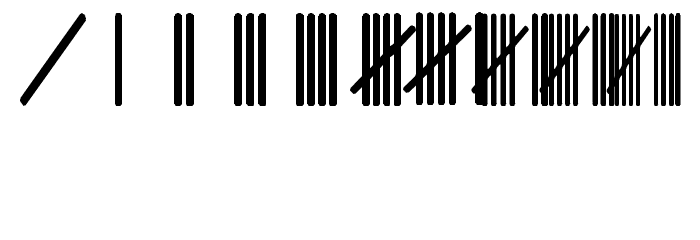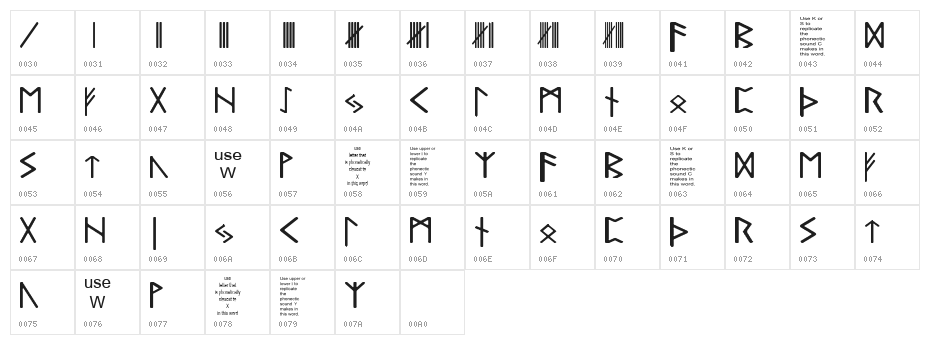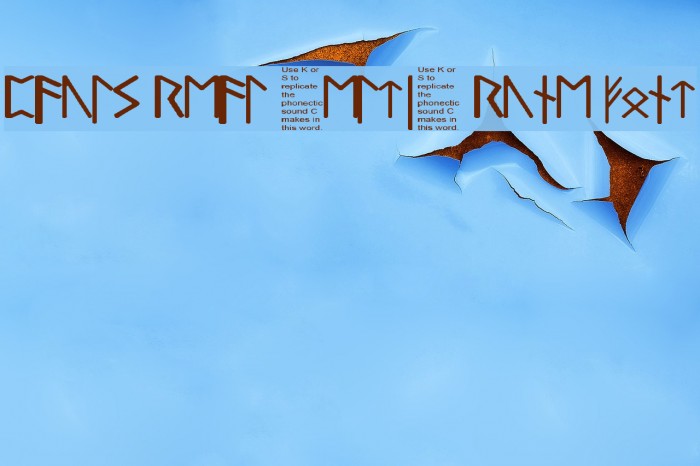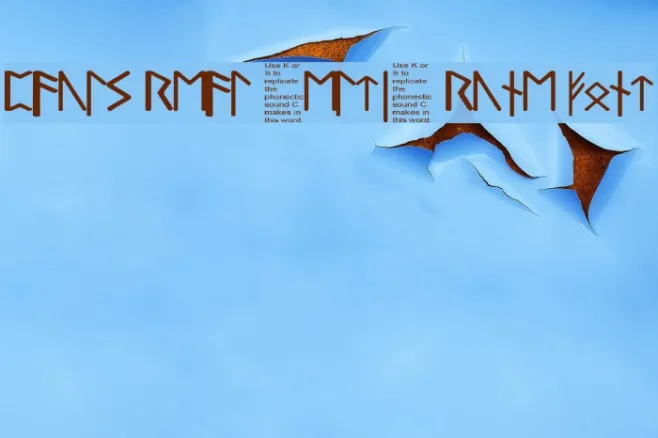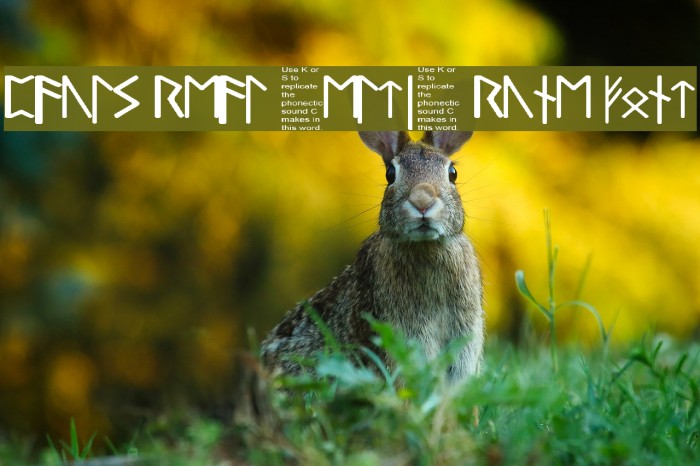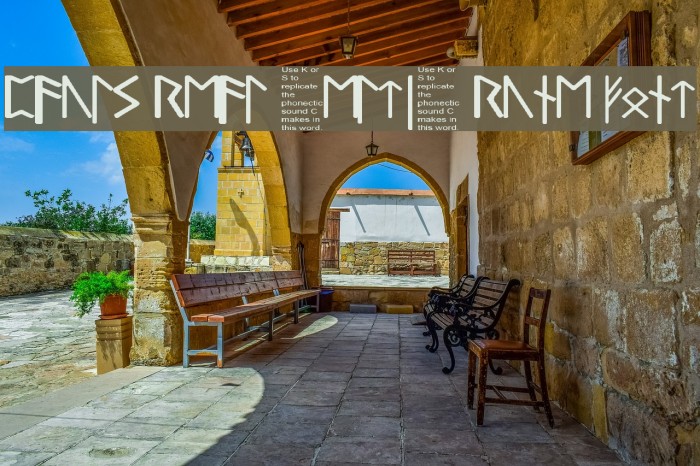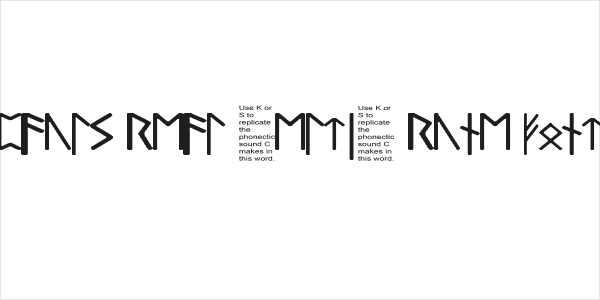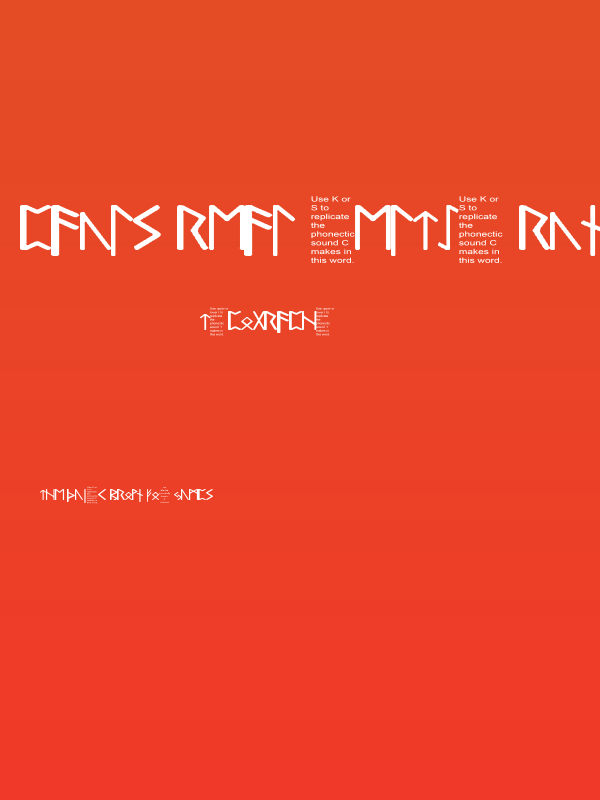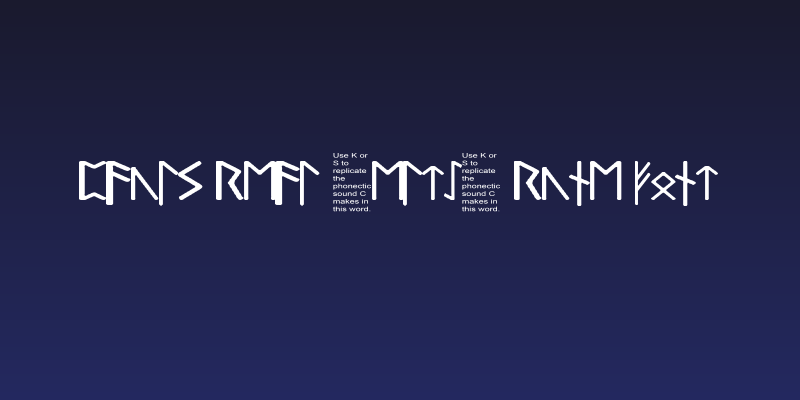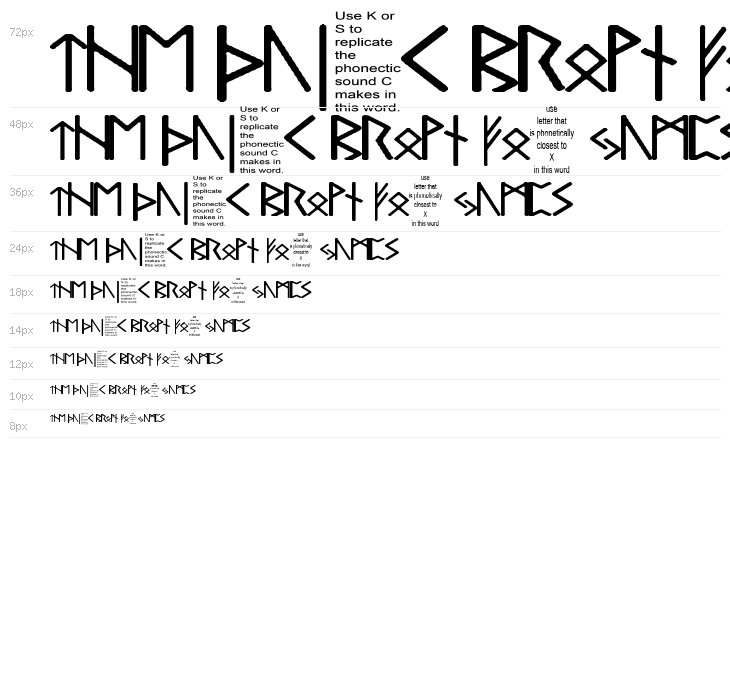
Pauls Real Celtic Rune Font Font
Pauls Real Celtic Rune Font Description
This font is inspired by ancient runic alphabets, featuring angular and geometric shapes that evoke a sense of historical mysticism. The characters are bold and distinct, with sharp edges and a uniform stroke width that gives them a strong presence. The design is reminiscent of traditional Celtic and Norse runes, making it ideal for projects that require an ancient or mystical aesthetic. The font includes uppercase letters, with each character maintaining a consistent height and width, contributing to a cohesive and balanced appearance. The spacing between characters is tight, enhancing the compact and unified look of the text. This font is particularly suited for decorative purposes, where its unique style can be fully appreciated.
| Proposed Projects | Ideal for fantasy book covers, historical documentaries, themed event invitations, or video game graphics. |